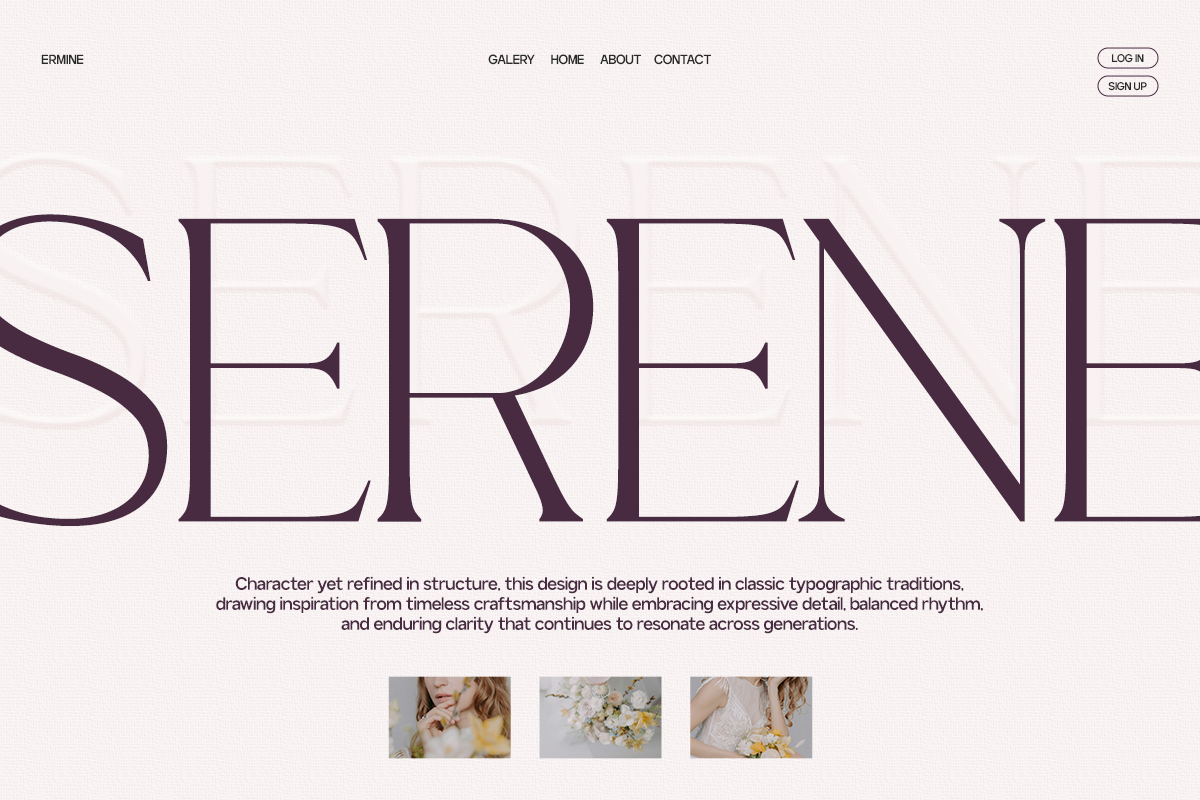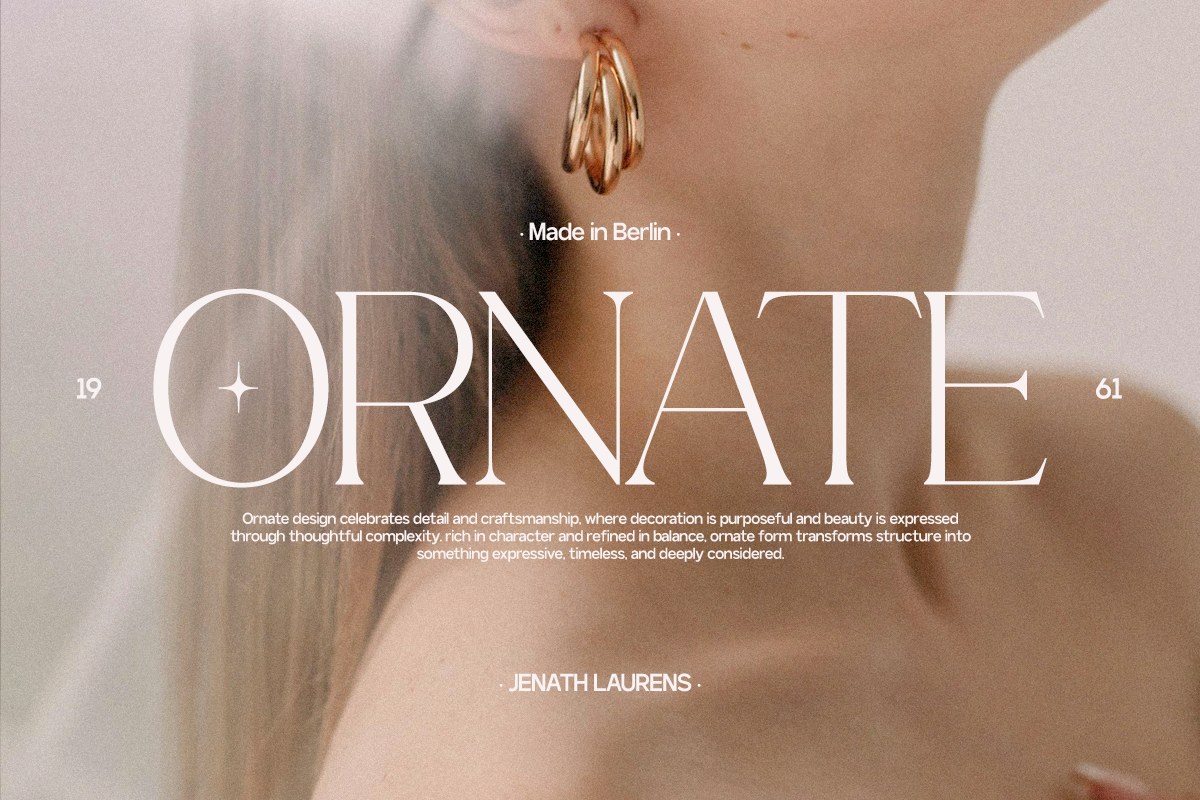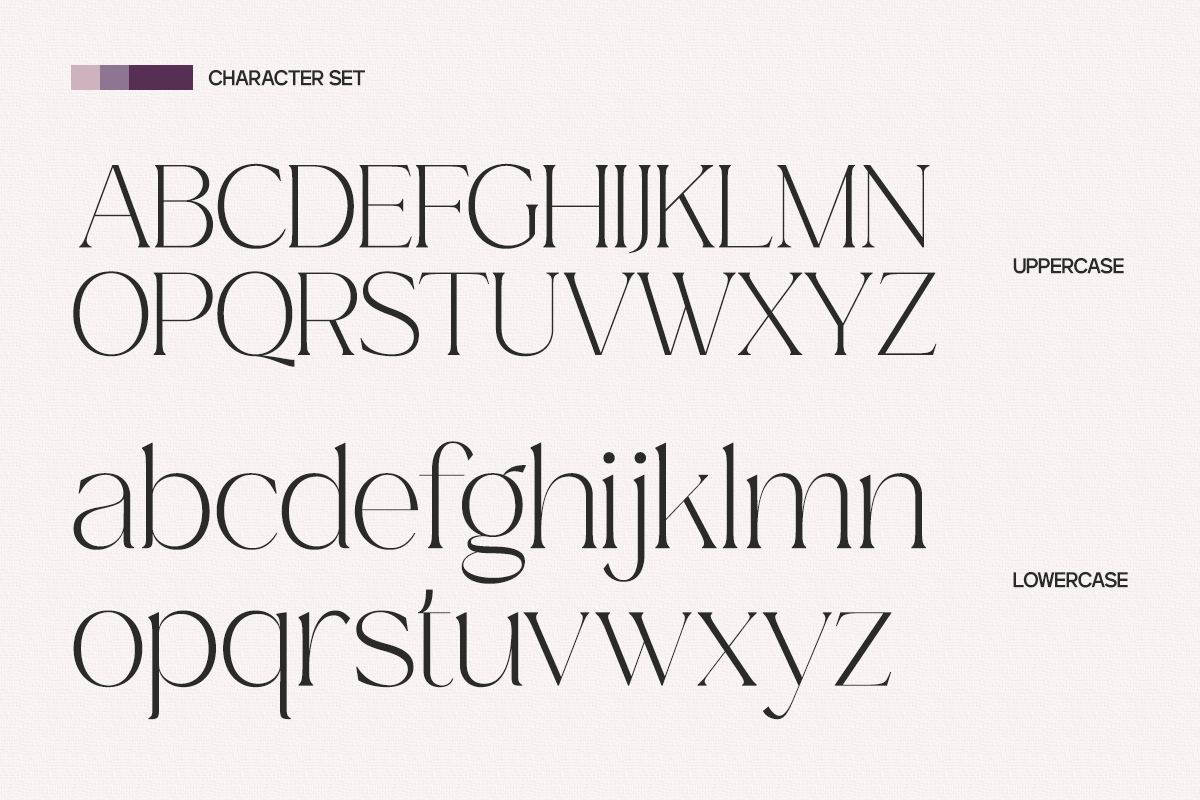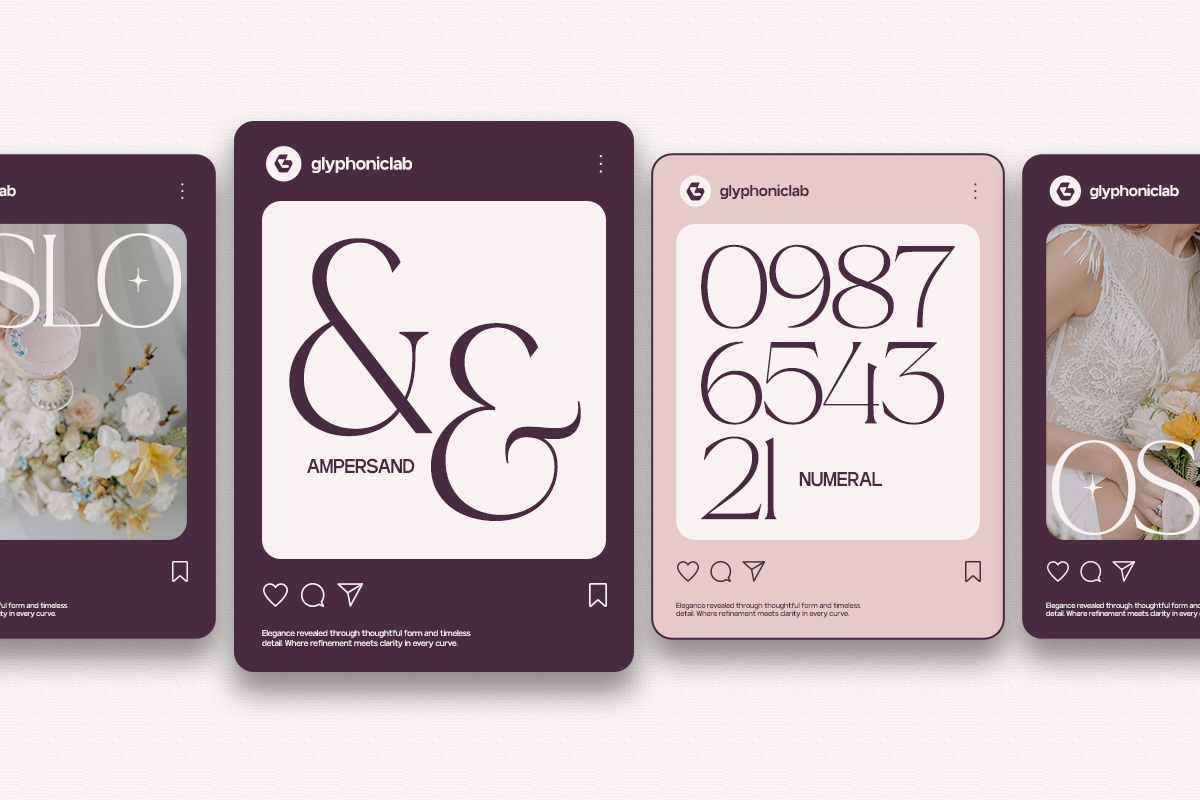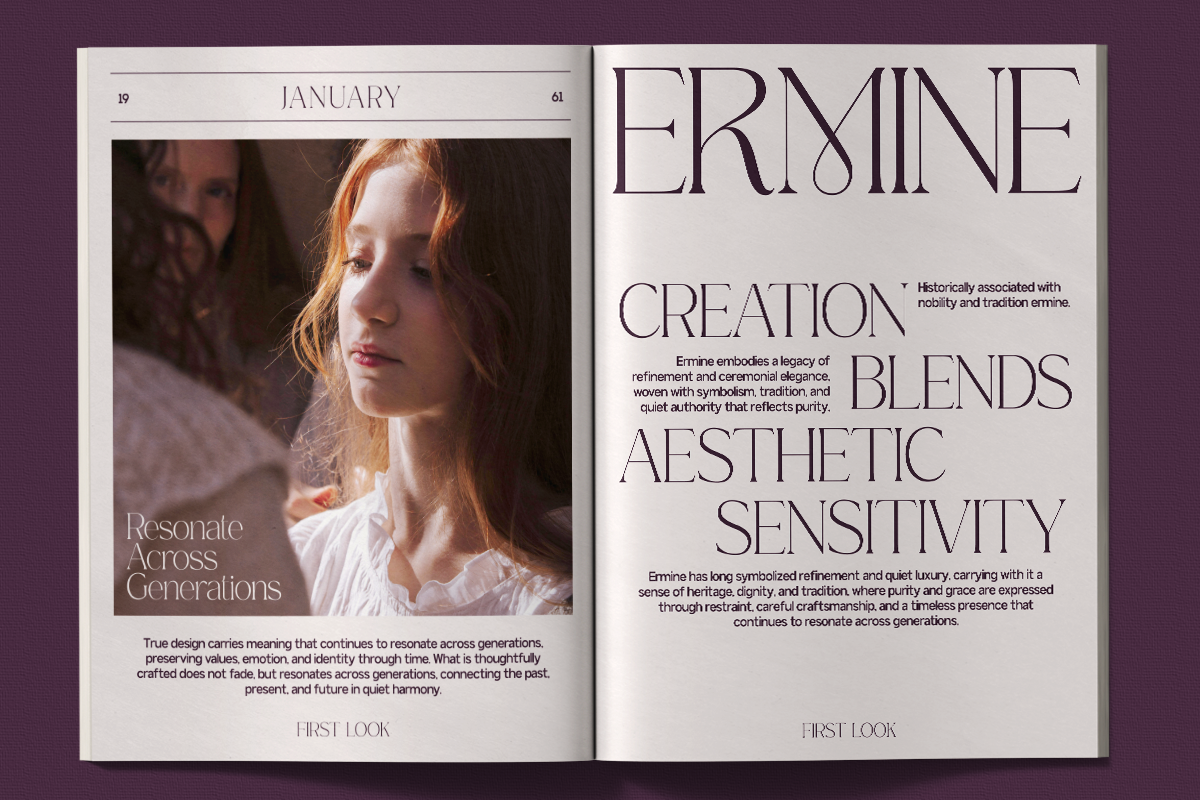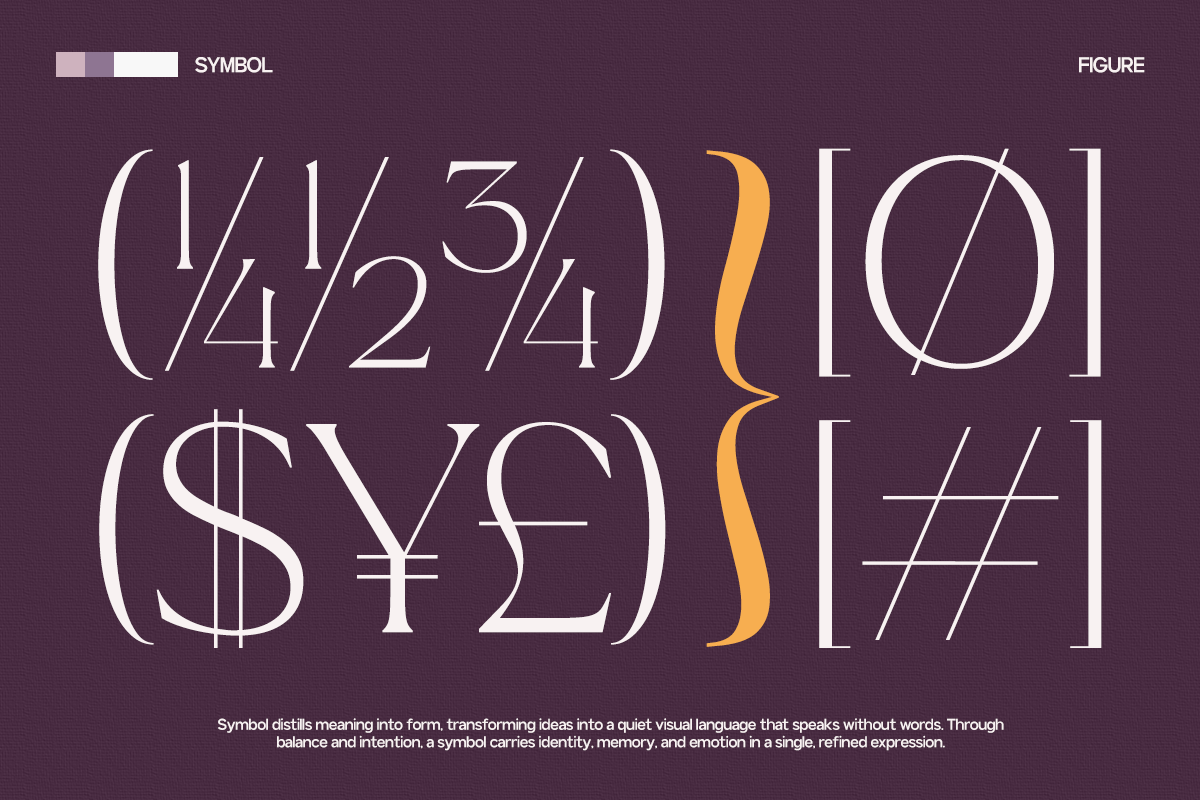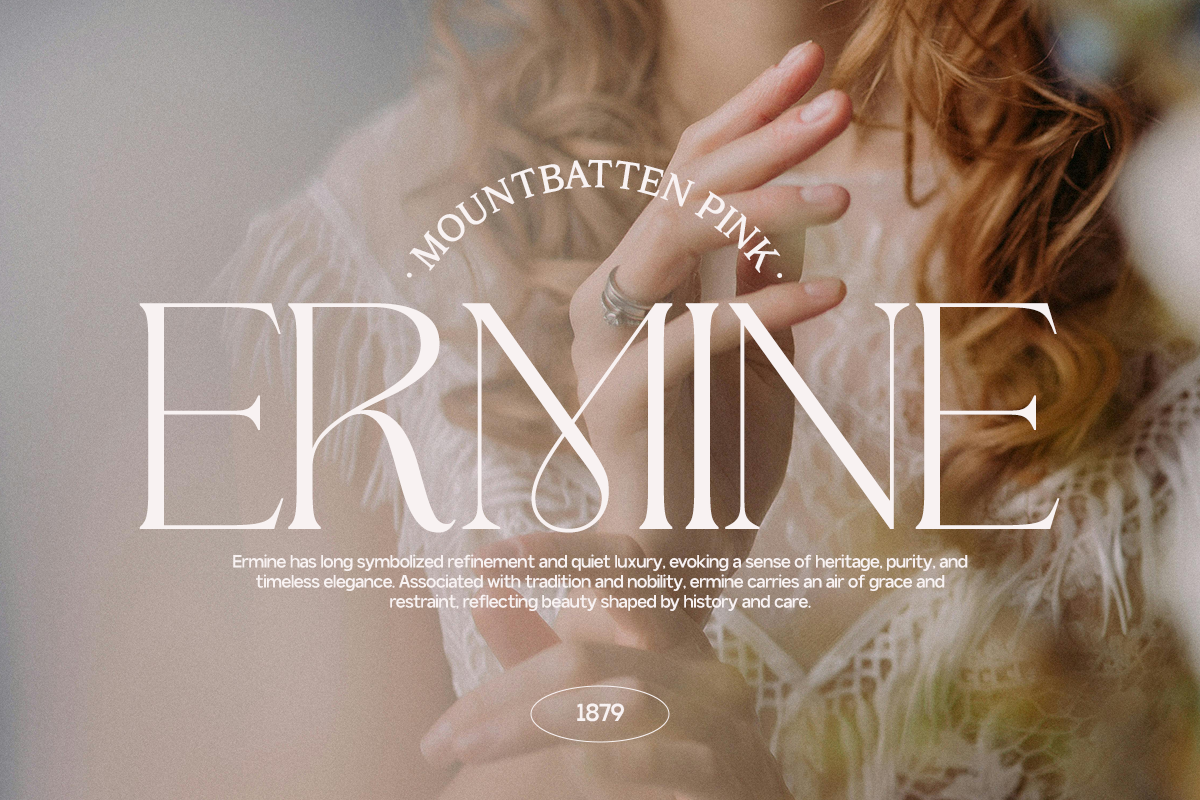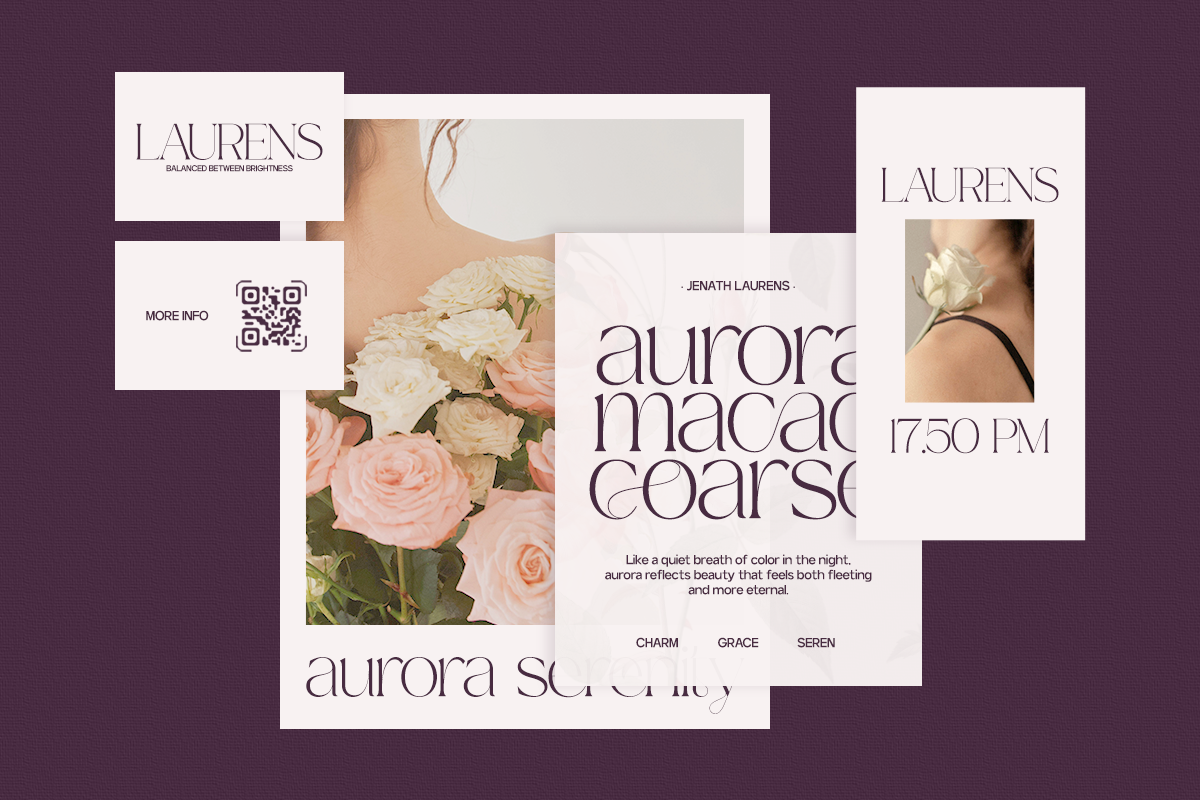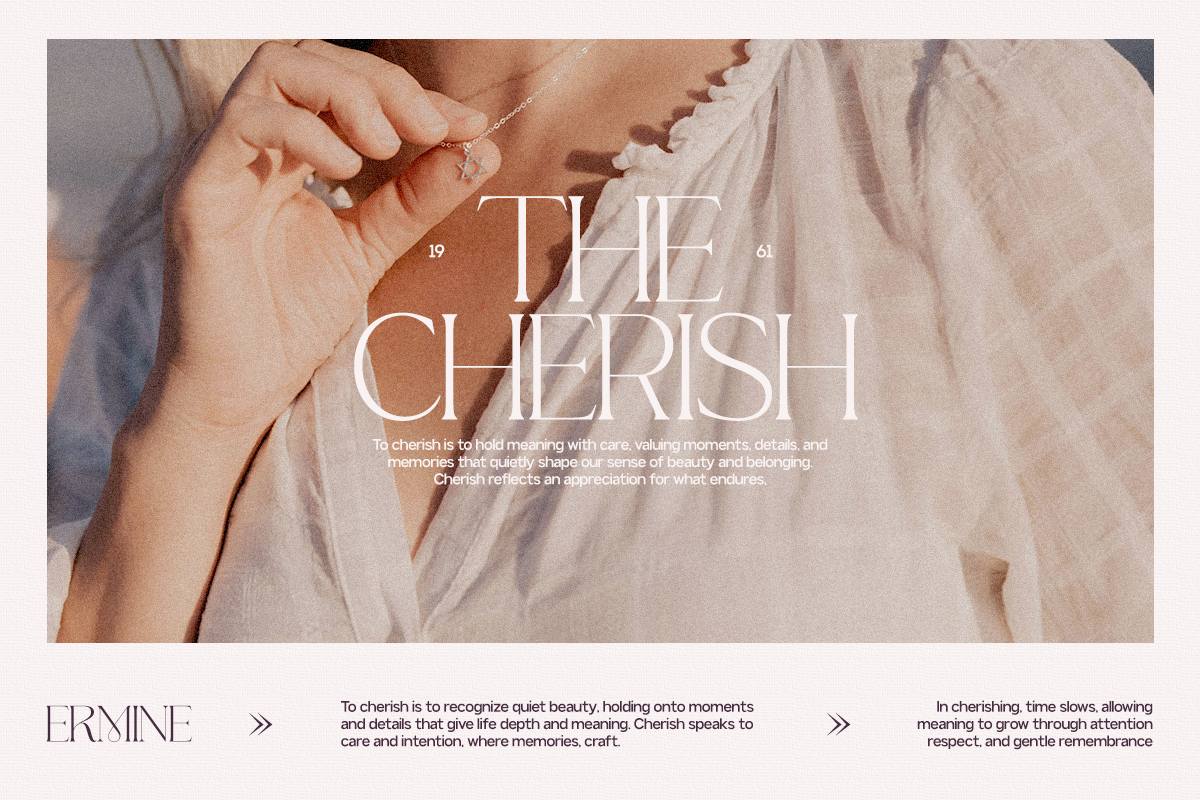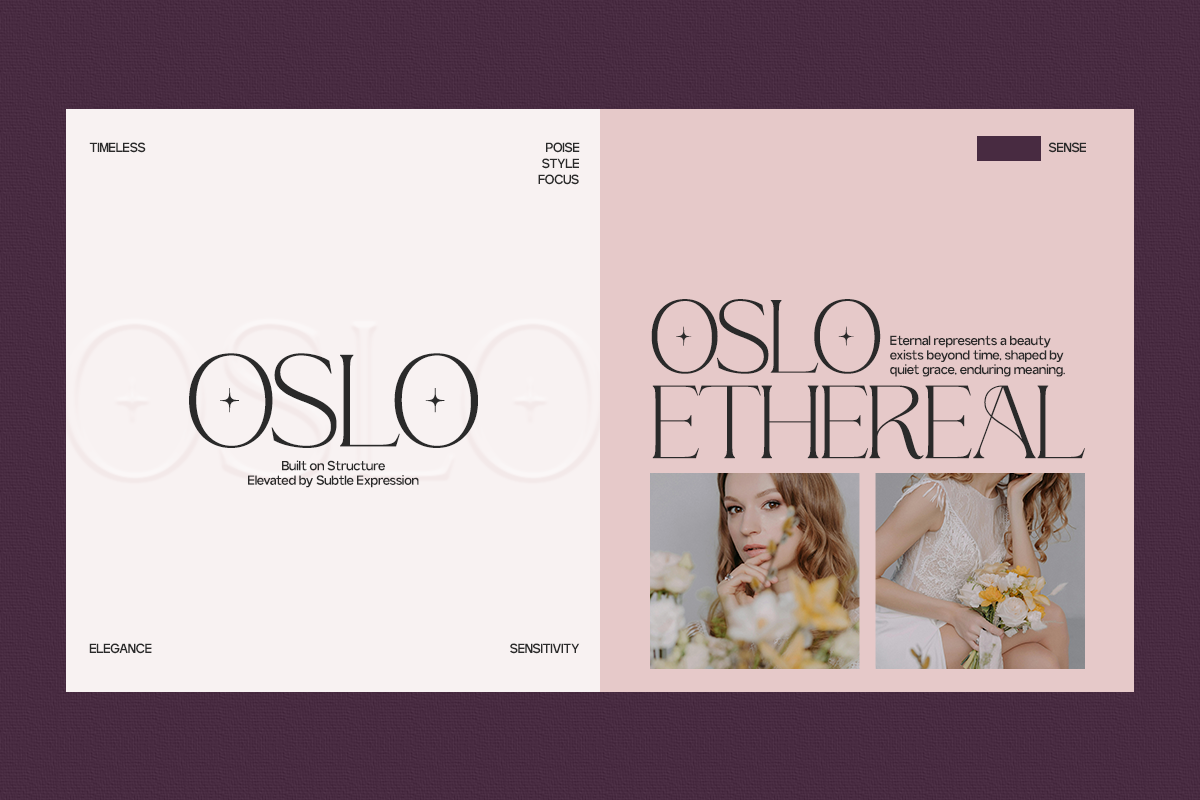
GC Adelite - Stylish Chic Serif
GC Adelite – Stylish Chic Serif is a sophisticated modern serif typeface designed to bring elegance, style, and refined character to contemporary typography. Featuring graceful proportions, distinctive serif details, and a balanced contrast between thick and thin strokes, GC Adelite creates a polished visual identity that feels luxurious yet effortlessly modern.
Inspired by contemporary fashion and chic editorial aesthetics, GC Adelite combines classic serif foundations with stylish, expressive details. Its elegant letterforms create a confident and feminine presence, making it especially effective in large-scale typography, where its refined curves and sophisticated structure can fully stand out.
Designed for brands that value elegance and visual personality, GC Adelite is ideal for fashion branding, beauty identities, luxury packaging, editorial layouts, magazine headlines, logos, invitations, and premium advertising. Its versatile character allows it to move seamlessly between sophisticated minimalism and expressive contemporary compositions.
Whether used as a statement wordmark, an editorial headline, or a refined brand identity, GC Adelite brings a chic modern attitude while preserving the timeless elegance of serif typography.
* Stylish Modern Serif Typeface
* Elegant & Refined Letterforms
* Sophisticated Serif Details
* Balanced Thick & Thin Stroke Contrast
* Chic Contemporary Character
* Fashion & Editorial Inspired
* Perfect for Headlines & Display Typography
* Suitable for Fashion, Beauty & Luxury Branding
* Ideal for Logos, Packaging, Editorial & Invitations
GC Adelite brings stylish sophistication to every composition — a chic modern serif crafted for elegant brands, refined identities, and timeless visual expression.